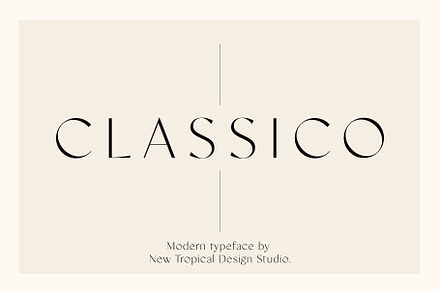
Classico – Serif Font
A classic serif following traditional construction, drawn without stylistic departure from established letterform conventions.
Conventional faces remain useful indefinitely, since there is nothing in them to date – which is the practical argument for classical design.
- Traditional letterform construction
- Book and editorial design
- Corporate and institutional identity
- Certificates and formal print
- Web typography